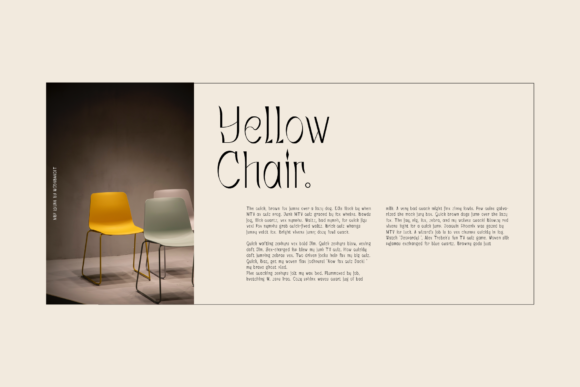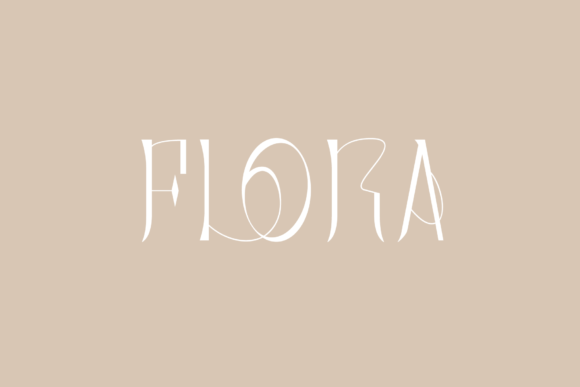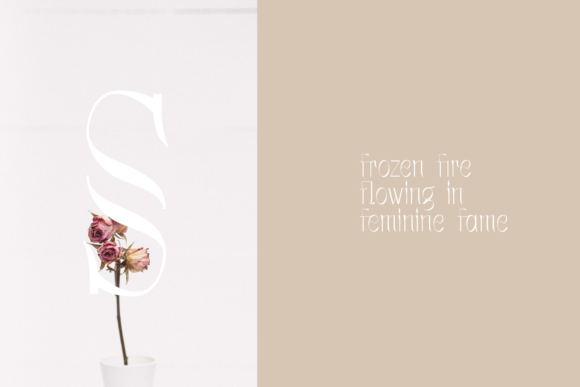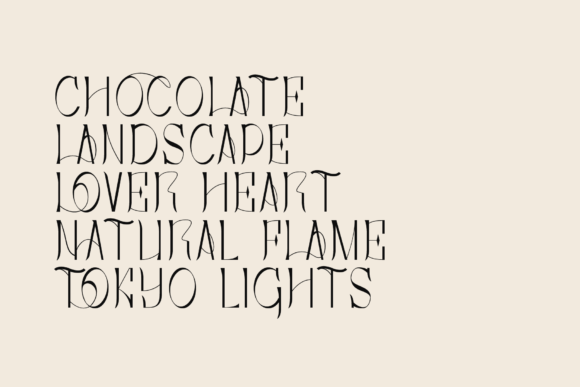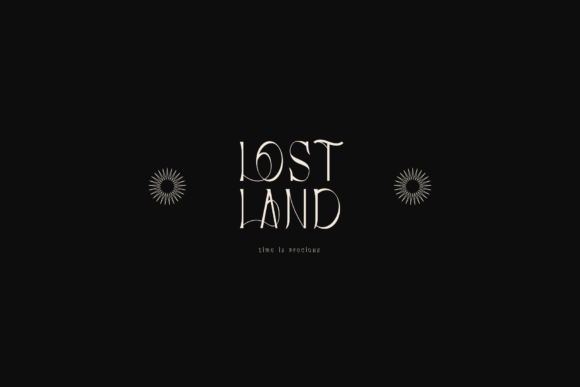
Introduction to Louna Font
As a designer, have you ever found yourself staring at a blank page, trying to bring your creative vision to life? The perfect font can make all the difference, elevating your design from ordinary to extraordinary. That’s where the Louna Font comes in – a stunning, elegant serif font that’s sure to take your creative project to new heights.
With its thin, delicate lines and sophisticated feel, the Louna Font is the perfect design resource for anyone looking to add a touch of high quality and sophistication to their work. Whether you’re working on a design project with a transparent background or need a font that will stand out against a busy background, the Louna Font is a versatile and reliable choice.
Key Features of Louna Font
- High-quality design resource with a transparent background, ideal for creative projects and backgrounds.
- Font size: 1,000 characters, making it suitable for a wide range of applications, from headings to body text.
- Unique characteristics: elegant and modern design, perfect for branding, logos, and creative projects that require a touch of sophistication.
Honest Review: Louna Font
I recently stumbled upon the Louna Font, and I’m excited to share my thoughts on this design resource. The Louna Font is a high-quality font that’s perfect for any creative project, whether it’s a logo, branding, or even a simple website.
What works well: ✨ The Louna Font is incredibly versatile and can be used in a variety of settings. Its modern design and sleek lines make it perfect for digital projects. Additionally, the font is available for free download, making it a fantastic resource for designers on a budget.
- Transparent background: The font comes with a transparent background, which makes it easy to overlay on any background.
- High-quality design: The Louna Font is designed with attention to detail, resulting in a professional-looking font that’s perfect for any design project.
Limitations: ⚠️ The only limitation I found was that the font is only available in a limited number of weights, which might not be suitable for all design projects. However, this is a minor issue and can be easily worked around.
Overall, I’m impressed with the Louna Font and would definitely recommend it to fellow designers. Its high-quality design, versatility, and free download make it a valuable resource for any creative project.
Tips for Getting the Most Out of Louna Font
Use the Louna Font in combination with other design elements to create a cohesive look. Experiment with different font sizes and colors to add depth and visual interest to your design. Take advantage of the font’s transparent background to create a seamless design.
The Louna Font is ideal for creative projects such as logos, branding, and marketing materials. It is also great for presentations, documents, and other visual content. The font’s high quality and free download option make it a great design resource for any project.
Does the Louna Font support a transparent background?
Yes, the Louna Font supports a transparent background, making it ideal for use in designs that require a seamless integration with images or other design elements. This feature is especially useful when creating graphics with a high-quality, transparent background.